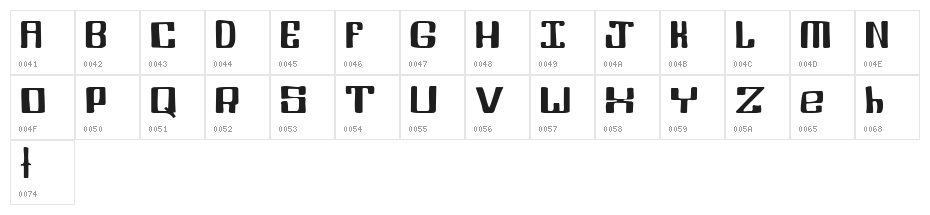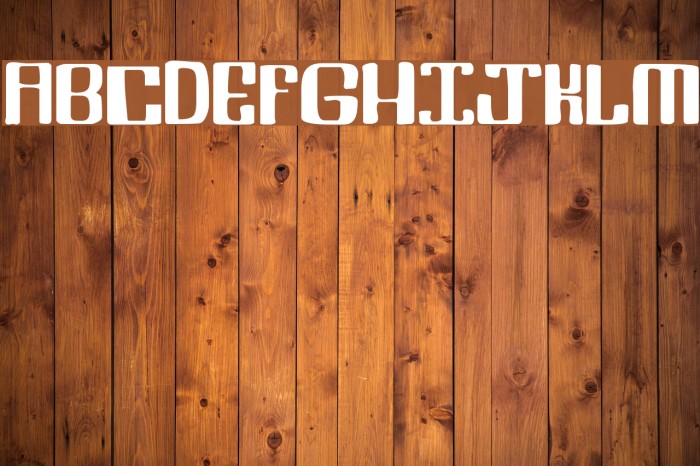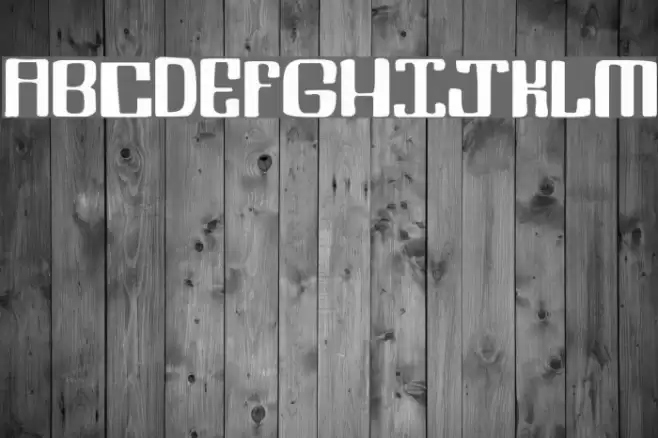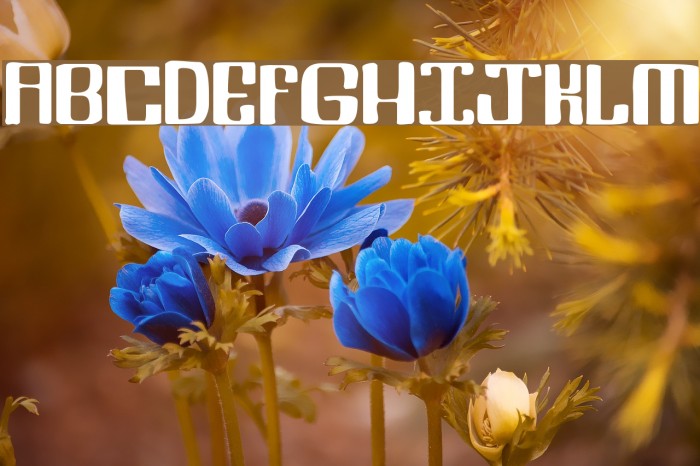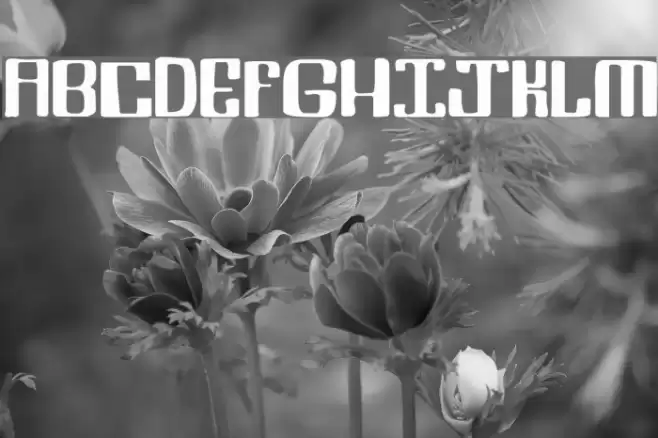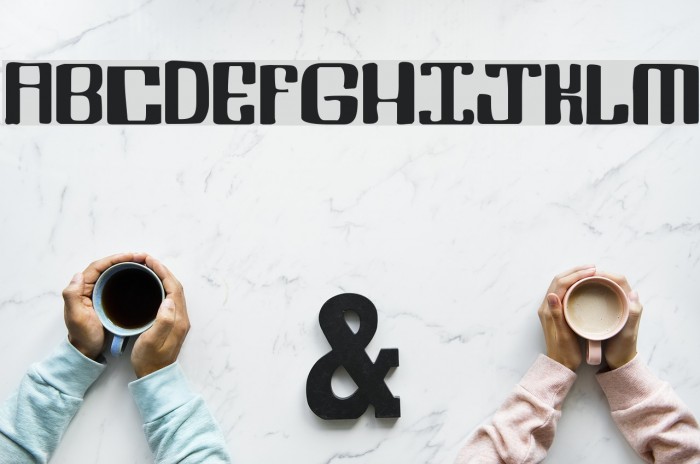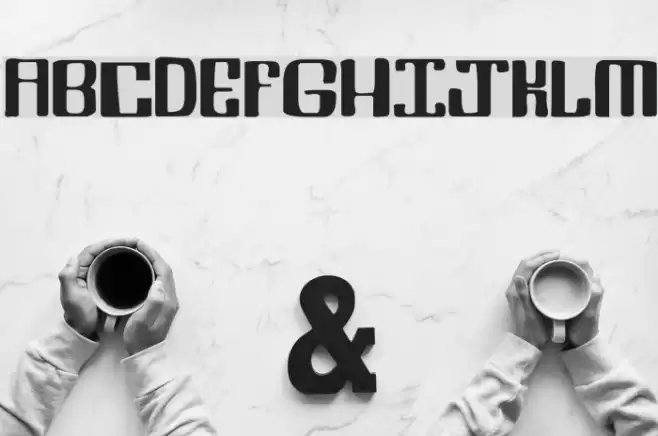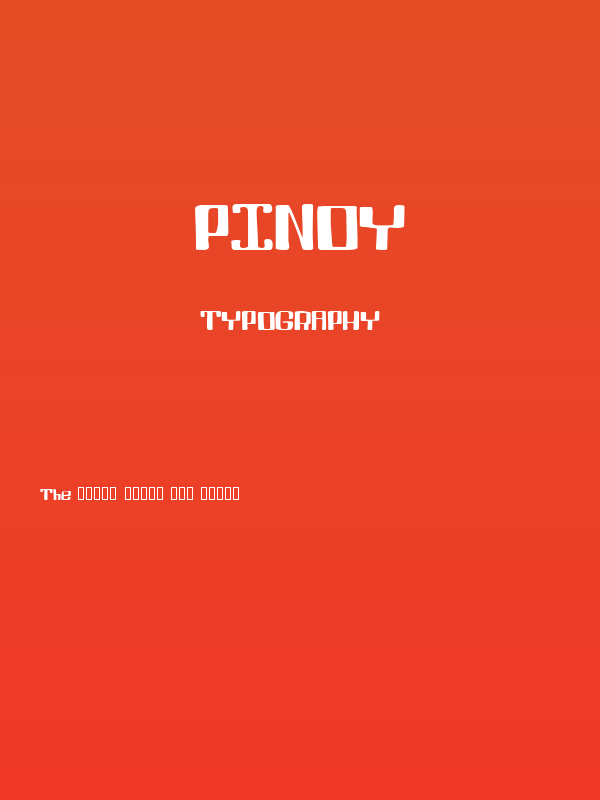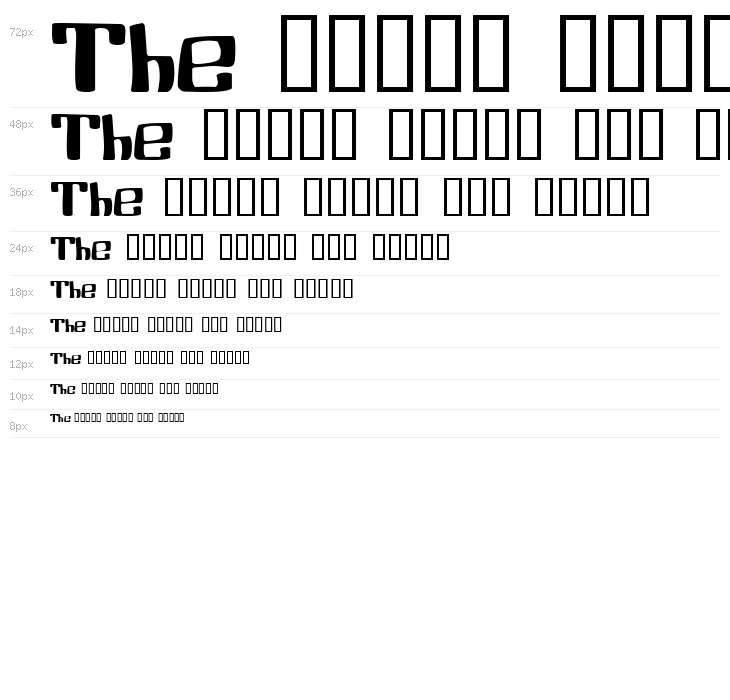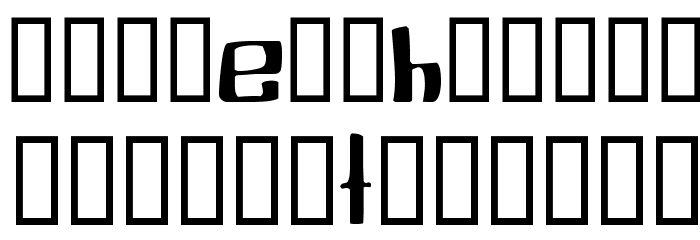
Pinoy Font
Pinoy Description
This font features a bold and striking design with a modern, geometric style. The uppercase letters are characterized by their thick, block-like appearance, with some letters incorporating unique cutouts and angles that add a distinctive flair. The lowercase letters follow a similar style, maintaining the boldness and geometric shapes, though they are not fully visible in the image. The numbers and special characters are not displayed, but the overall style suggests they would follow the same bold and geometric theme. This font is highly decorative and would stand out in any design project.
| Proposed Projects | Ideal for posters, logos, and branding materials that require a strong visual impact. |